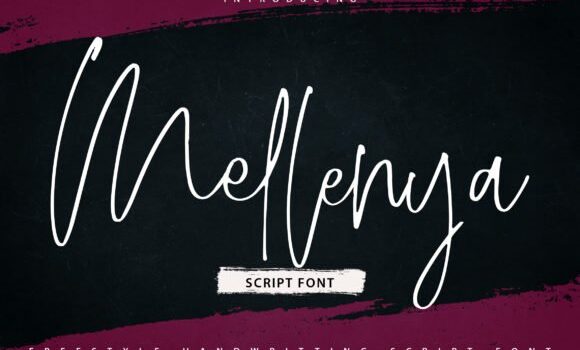
Mellenya Font – Free Download Introduction to Mellenya Font Mellenya is a timeless and relaxed handwritten font. 📸 Preview Gallery 4 images 📌 Product Name Mellenya Font 👤 Author Vunira 📂 Category Explore ⬇️ Download Mellenya Font FREE Free Download